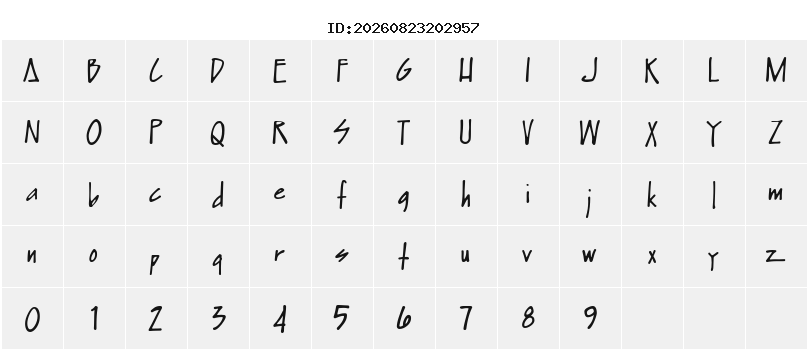
Satchmo Preview
• Font Name: Satchmo
• Full Font Name: Satchmo
About Satchmo.ttf
Satchmo.ttf is a modern, elegant sans-serif font designed for ultimate readability and visual harmony. Perfect for branding, headlines, web design, and print materials.